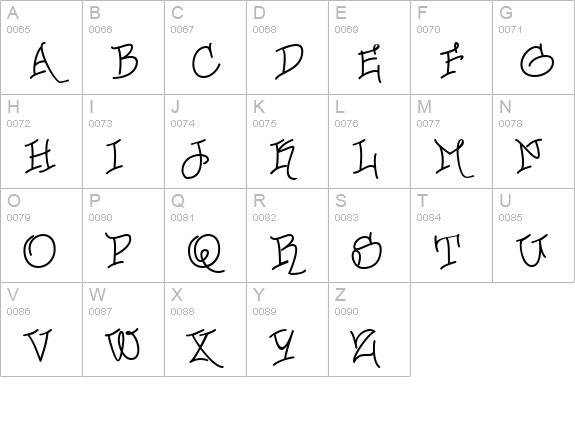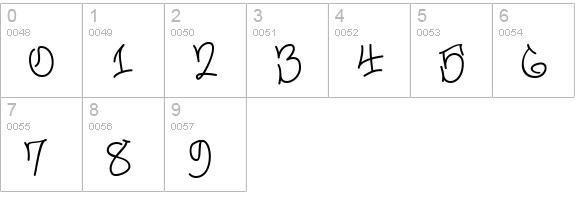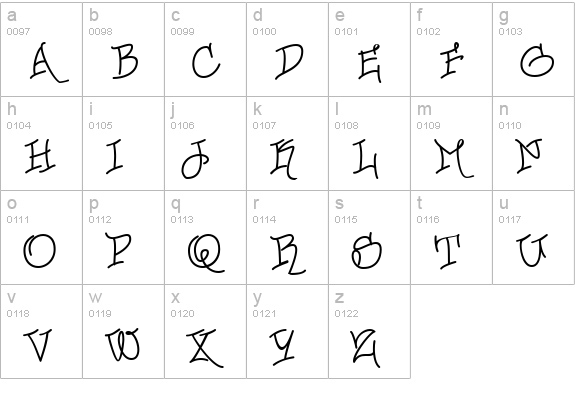
Urban Scrawl Buttah is a truly unique and eye-catching typeface that effortlessly captures the essence of urban street art. This bold and expressive font is perfect for any design project that aims to make a statement and stand out from the crowd. With its graffiti-inspired letterforms and distinctive hand-drawn style, Urban Scrawl Buttah brings a raw and edgy energy to any text. Each character is meticulously crafted to exude a sense of urban grit, making it the ideal choice for posters, logos, album covers, and other creative endeavors. What sets Urban Scrawl Buttah apart is not only its striking aesthetic, but also its availability for free. That's right, this fantastic font is freely available to download at FontsMarket.com, giving designers and artists alike the opportunity to incorporate this dynamic typeface into their work without any cost. Whether you're a professional graphic designer looking to add a touch of urban flair to your latest project, or an aspiring artist seeking to enhance your visual creations, Urban Scrawl Buttah is the perfect font to unleash your creativity. It effortlessly combines the raw energy of street art with the versatility of a fully functional typeface. So don't miss out on this incredible opportunity to get your hands on Urban Scrawl Buttah for free. Head over to FontsMarket.com and download this captivating font today. Let your imagination run wild and watch as your designs come to life with the bold and unforgettable presence of Urban Scrawl Buttah.